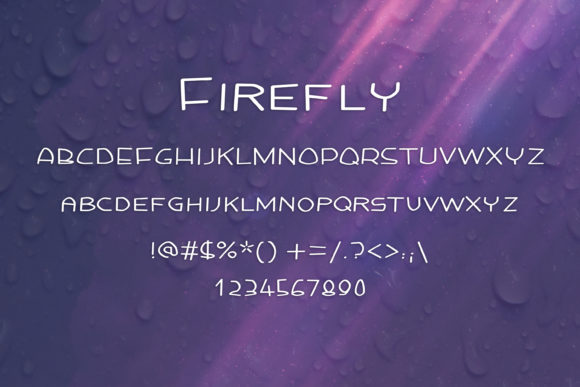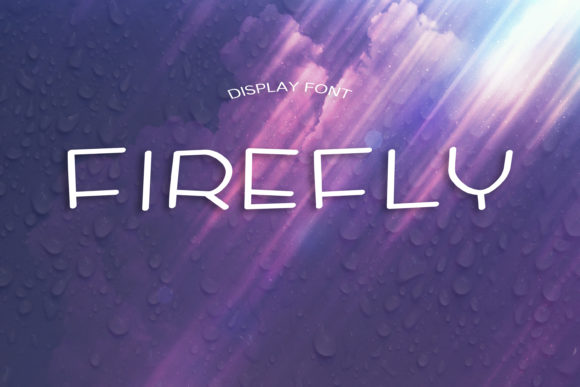
Introducing Firefly Font: The Quirky Display Font That Lights Up Your Designs
Are you tired of using the same old fonts in your design projects? Look no further than Firefly Font, a modern and quirky display font that’s sure to add a spark to your creations. With its unique personality and eye-catching charm, Firefly Font is the perfect choice for designers and crafters looking to make a statement.
The Story Behind Firefly Font
Firefly Font is a carefully crafted typeface designed to radiate personality and whimsy. Its creators aimed to develop a font that would stand out from the crowd, with a distinctive look and feel that’s both modern and playful. The result is a font that’s equal parts sophisticated and fun, making it perfect for a wide range of design applications.
What Makes Firefly Font So Special?
So, what sets Firefly Font apart from other display fonts on the market? Here are just a few of its standout features:
- Unique Character Set: Firefly Font boasts a comprehensive character set, complete with uppercase and lowercase letters, numbers, and punctuation marks. This ensures that you have everything you need to create stunning designs.
- Quirky and Playful: Firefly Font’s quirky and playful design makes it perfect for projects that require a bit of personality. Whether you’re creating a logo, poster, or social media graphic, this font is sure to add a touch of whimsy.
- Modern and Sophisticated: Despite its playful nature, Firefly Font is also surprisingly sophisticated. Its clean lines and elegant curves make it suitable for a wide range of design applications, from luxury brands to creative agencies.
How to Use Firefly Font in Your Designs
Firefly Font is an incredibly versatile typeface that can be used in a variety of design projects. Here are just a few ideas to get you started:
- Logos and Branding: Firefly Font’s unique personality makes it perfect for logos and branding projects. Use it to create a memorable and eye-catching logo that sets your brand apart.
- Posters and Flyers: Add a touch of whimsy to your posters and flyers with Firefly Font. Its bold and playful design is sure to grab attention and leave a lasting impression.
- Social Media Graphics: Firefly Font is also perfect for social media graphics, including Facebook posts, Instagram stories, and Twitter headers. Use it to add a bit of personality to your online presence.
Tips and Tricks for Getting the Most Out of Firefly Font
To get the most out of Firefly Font, here are a few tips and tricks to keep in mind:
- Experiment with Colors: Firefly Font looks amazing in a variety of colors. Experiment with different hues and combinations to find the perfect look for your design.
- Play with Size and Scale: Firefly Font is designed to be versatile, so don’t be afraid to experiment with different sizes and scales. Use it as a bold headline or a smaller, more subtle text element.
- Mix and Match with Other Fonts: Firefly Font pairs well with a variety of other fonts. Try mixing and matching it with other typefaces to create a unique and eye-catching design.
| Font Name | Firefly Font |
| Author | dmytroyarish |
Firefly Font is a modern and quirky display font that’s sure to add a spark to your design projects. With its unique personality, versatile design, and comprehensive character set, it’s the perfect choice for designers and crafters looking to make a statement. So why wait? Download Firefly Font today and start creating stunning designs that light up the world!